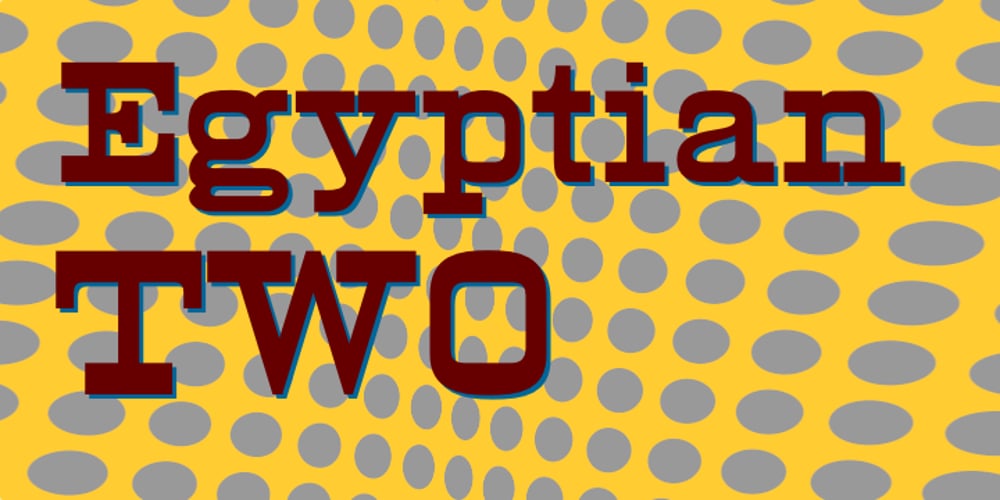
EgyptianTwo Font Family was designed by William Hamilton Page, Jordan Davies and published by Wooden Type Fonts. EgyptianTwo contains 1 styles and family package options. A revival of one of the popular wooden type fonts of the 19th century, with classic flat slab serifs, unbracketed, short descenders. Very popular in the 19th century.